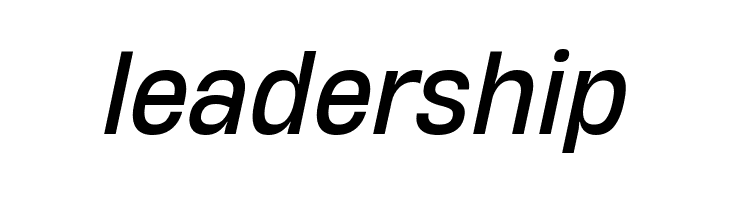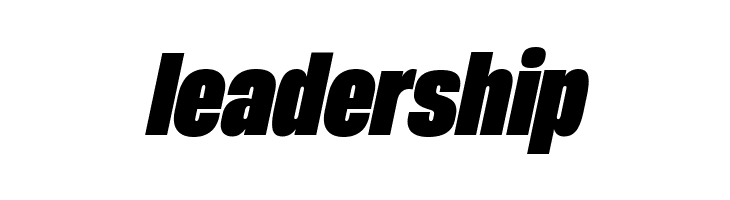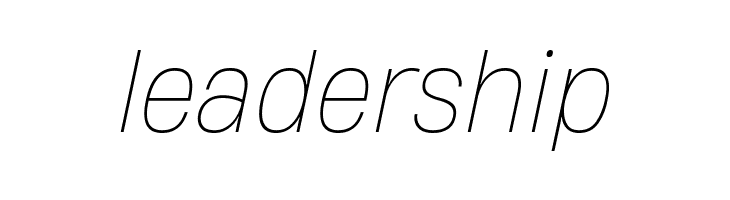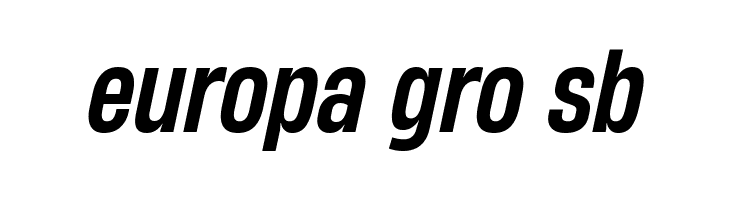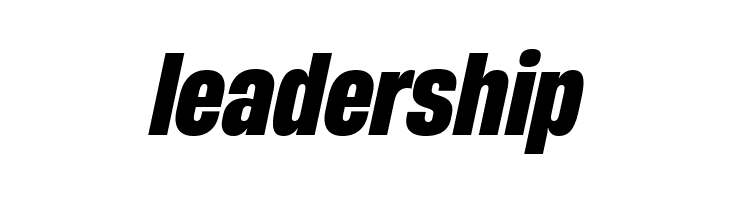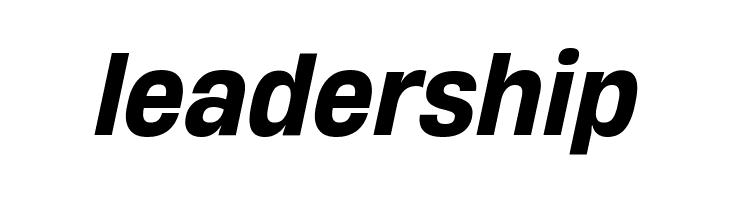
A bold, heavy italic font with high contrast and tight spacing, perfect for impactful designs.
A thin, modern italic font with a sleek and elegant design.
A sleek, modern, light italic font with medium contrast and normal spacing.
A sleek, modern italic font with elongated characters and consistent stroke width.
A modern, italicized sans-serif typeface with clean lines and balanced spacing.
A modern, medium-weight italic font with a sleek and slightly condensed style.
A bold, italicized font with a strong, modern presence.
A bold, heavy italic font with high contrast and a modern, impactful style.
A modern, thin italic font with elegant strokes and a refined appearance.
A modern, light, italic sans-serif font with a sleek and elegant design.
A modern, italic sans-serif font with clean lines and a dynamic style.
A modern, italic sans-serif font with a clean and dynamic style.
A modern, medium-weight italic font with a bold and slightly condensed style.
A bold, italicized font with strong, clean lines and excellent legibility.
A bold, italic font with a dynamic and modern style.
A bold, heavy italic font with a strong, modern presence.